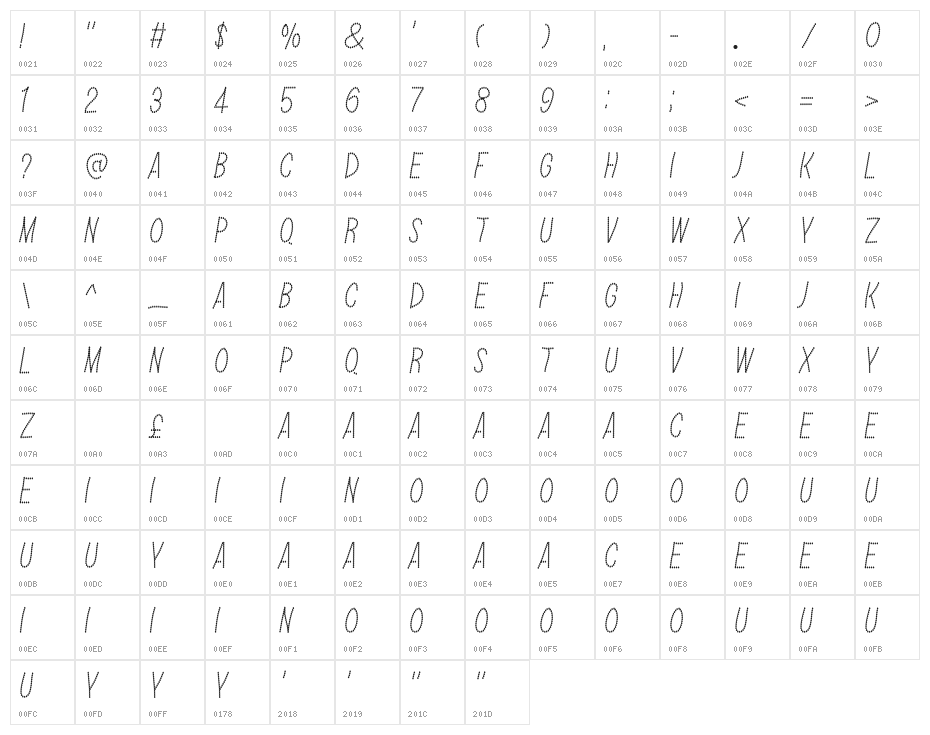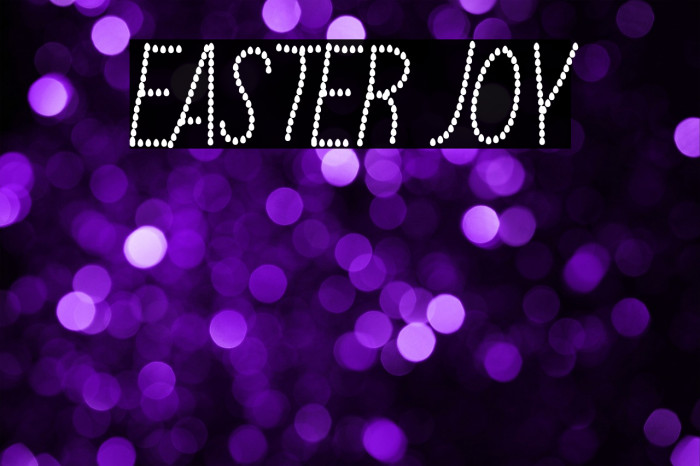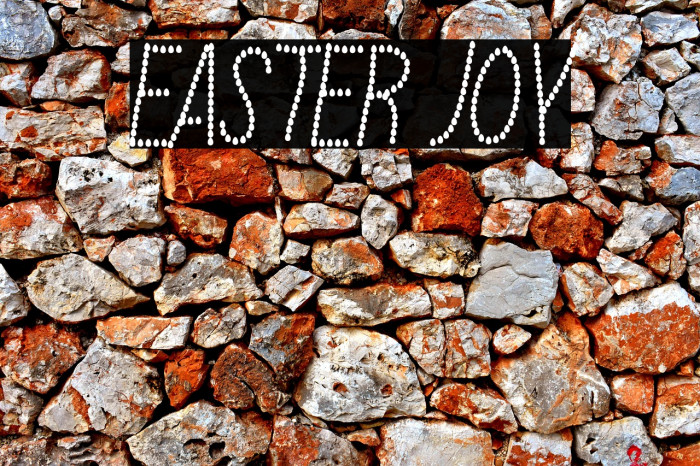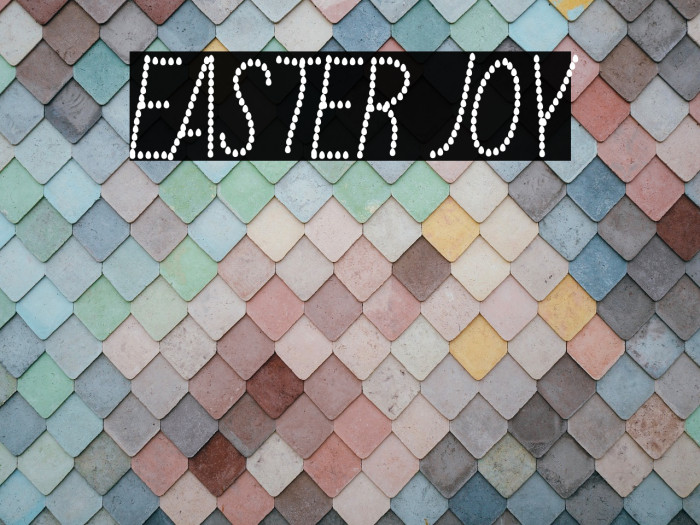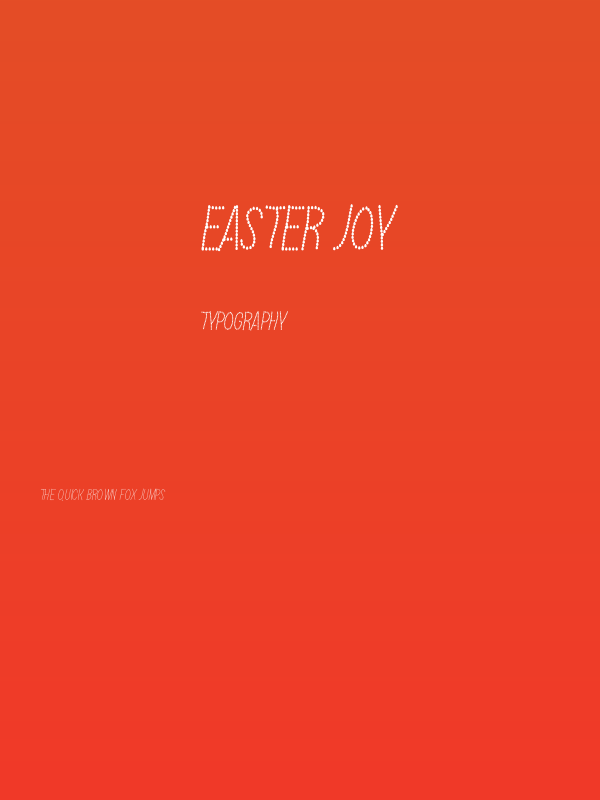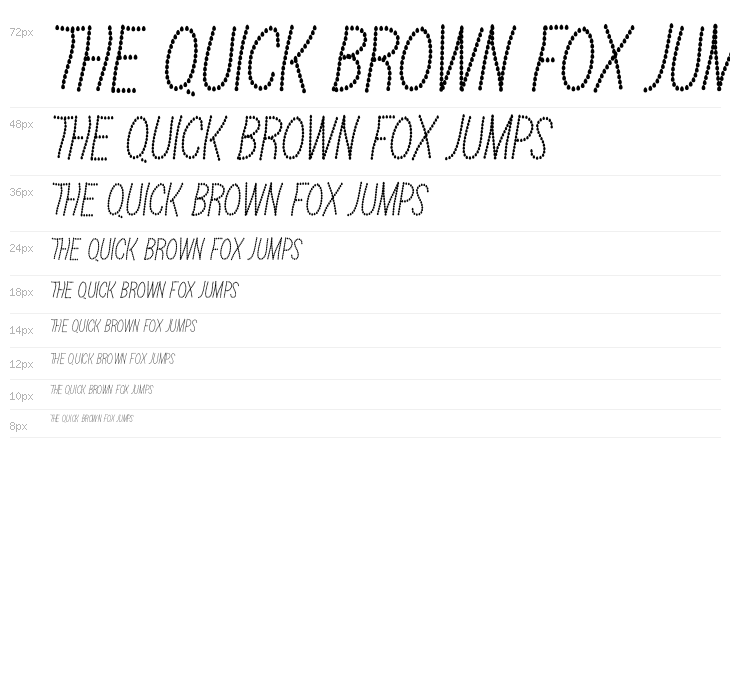
Easter Joy Font
Easter Joy Description
This playful and decorative font is characterized by its unique dotted pattern, where each character is formed by a series of evenly spaced dots. The letters are slightly slanted, giving a dynamic and lively appearance. The uppercase and lowercase letters maintain a consistent style, with rounded edges and a uniform dot size that creates a cohesive look. The numbers and special characters follow the same design principle, ensuring a harmonious overall aesthetic. This font is ideal for creative projects that require a fun and engaging visual element.
Easter Joy
| Proposed Projects | Ideal for greeting cards, children's books, playful branding, and festive event invitations. |